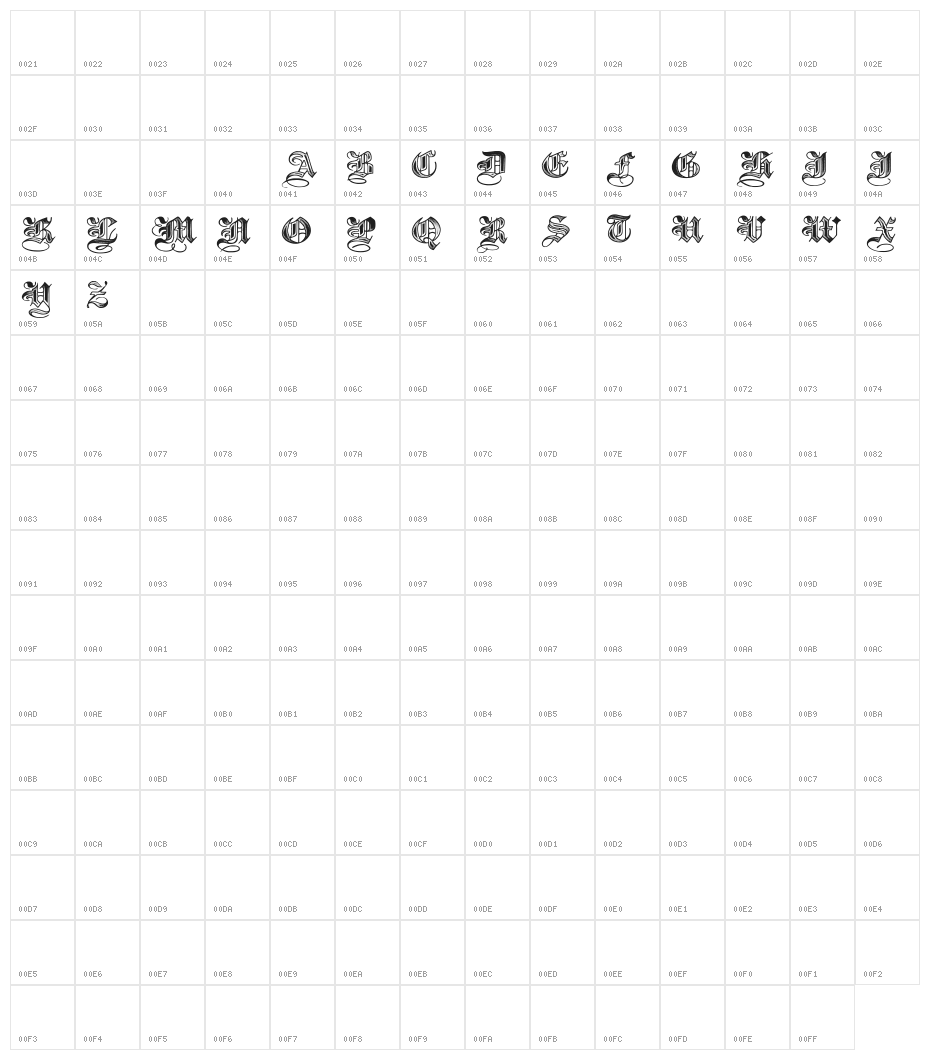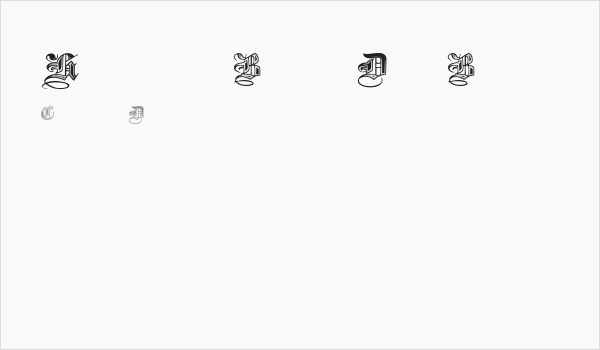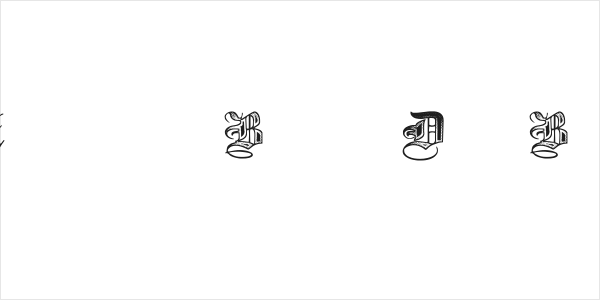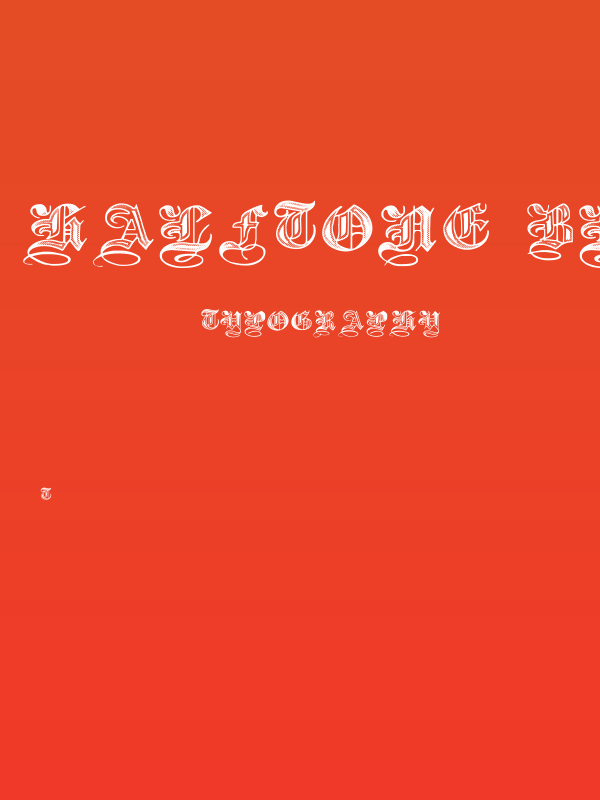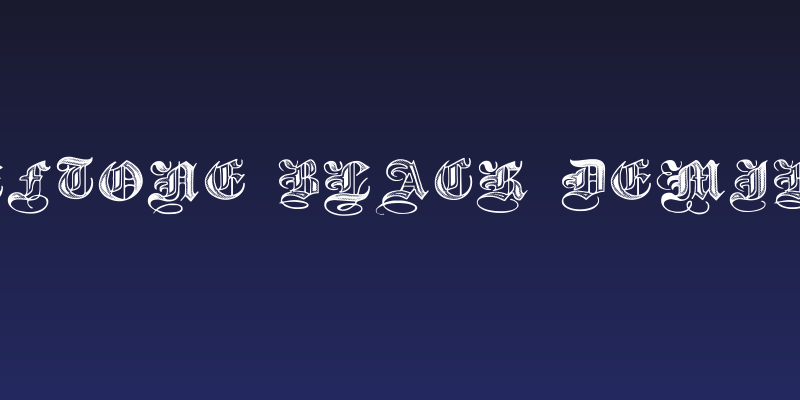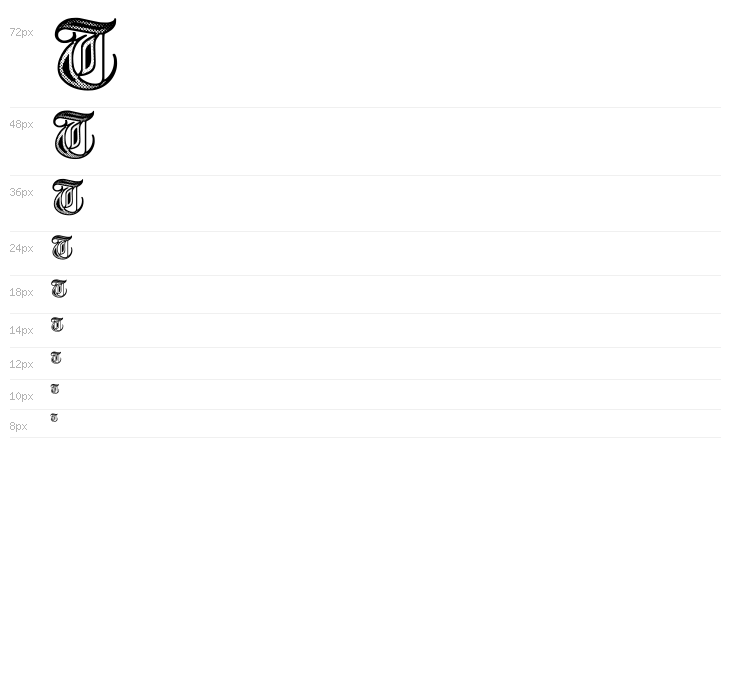
Halftone Black DemiBold Font
Halftone Black DemiBold Description
This font exhibits a classic blackletter style, characterized by its intricate and ornate letterforms. The uppercase letters are highly decorative, featuring elaborate swashes and flourishes that give it a historical and gothic appearance. The font's boldness is evident in the thick strokes, which are contrasted by thin lines that add to its dramatic flair. The overall design is reminiscent of medieval script, making it suitable for projects that require a touch of elegance and tradition.
| Proposed Projects | Ideal for use in vintage-themed designs, certificates, book covers, and branding that requires a historical or gothic touch. |